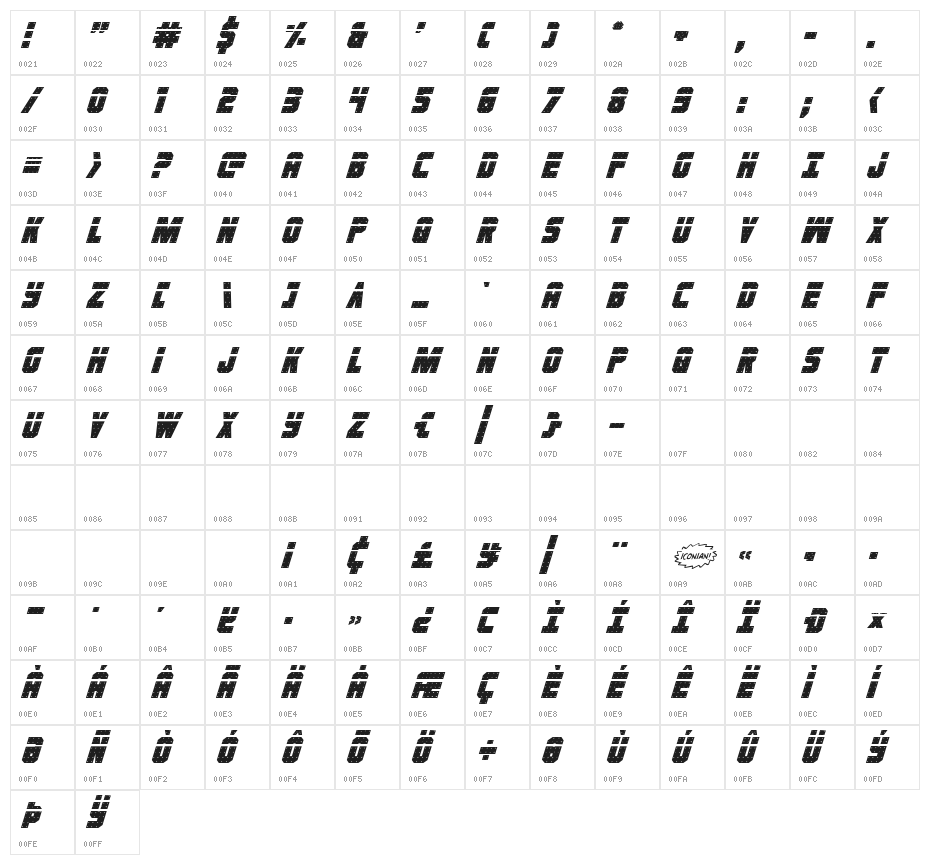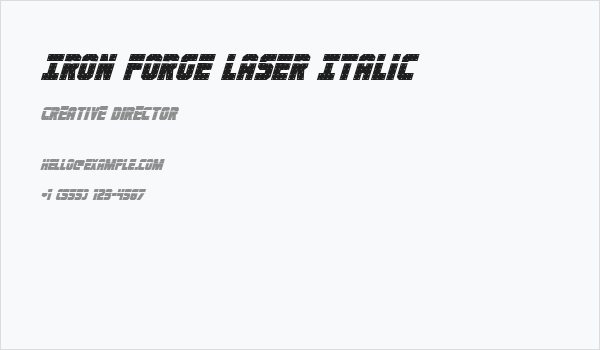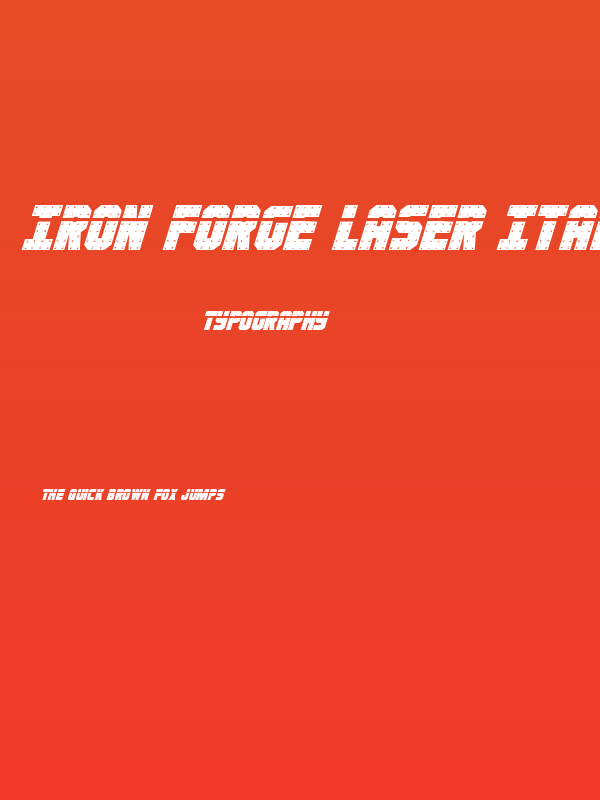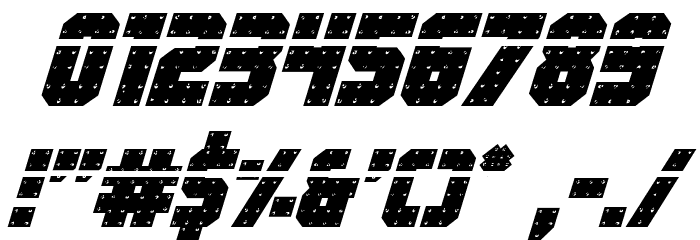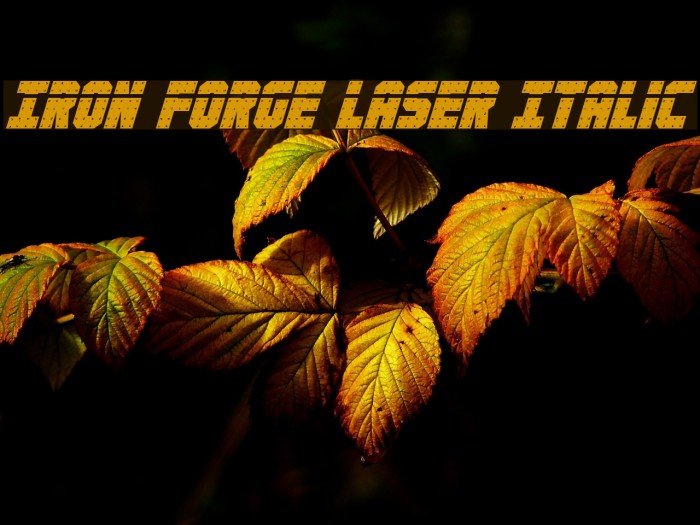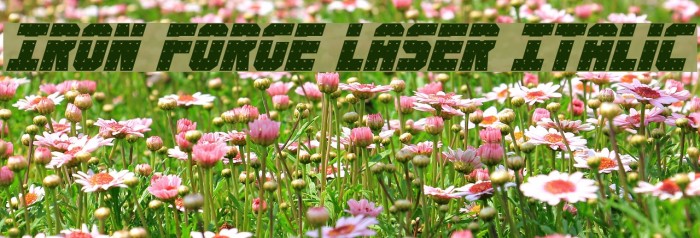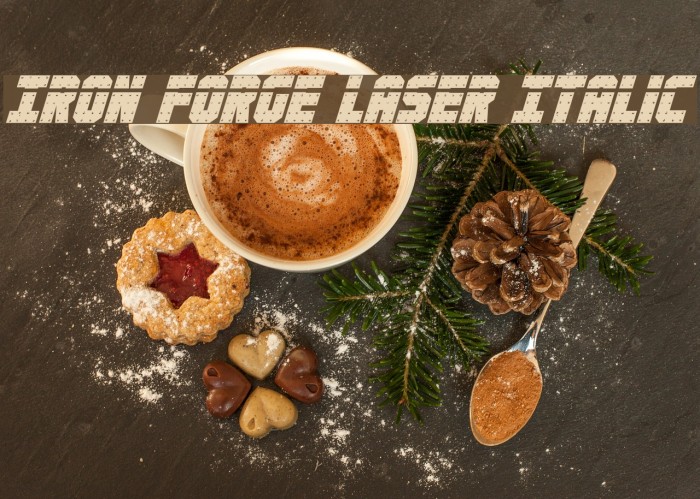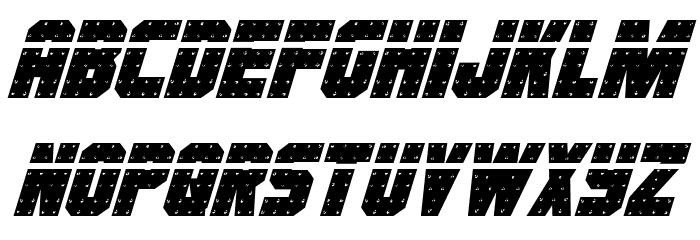
Iron Forge Laser Italic Font
Iron Forge Laser Italic Description
This font features a bold, italicized style with a futuristic and industrial aesthetic. The characters are constructed with a blocky, geometric design, and are filled with a pattern of small, evenly spaced dots, giving them a laser-cut appearance. The uppercase and lowercase letters maintain a consistent width, creating a uniform look across the typeface. The numbers and special characters follow the same design principles, ensuring cohesion throughout. The font's unique style makes it stand out, suitable for projects that require a modern and edgy feel.
| Overall Style | Futuristic, Industrial |
| Proposed Projects | Ideal for sci-fi themed projects, tech branding, video game titles, and futuristic posters. |